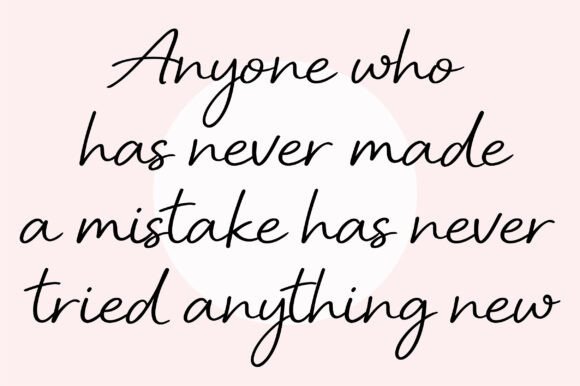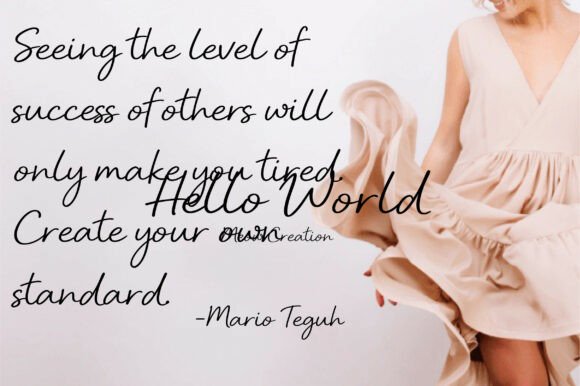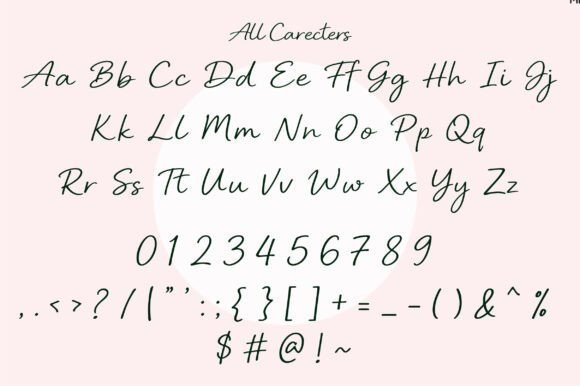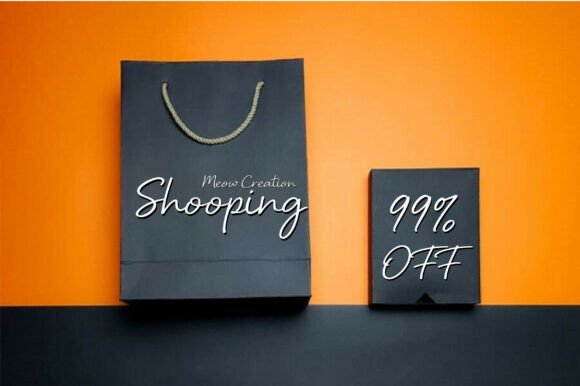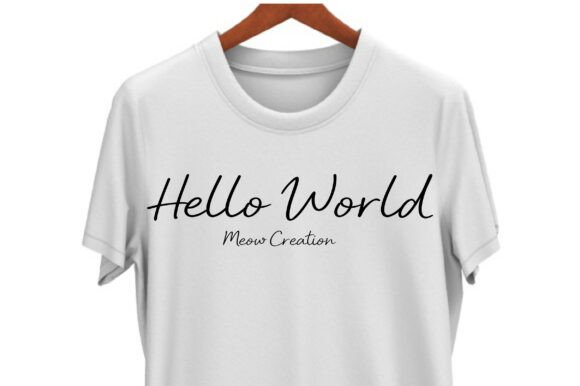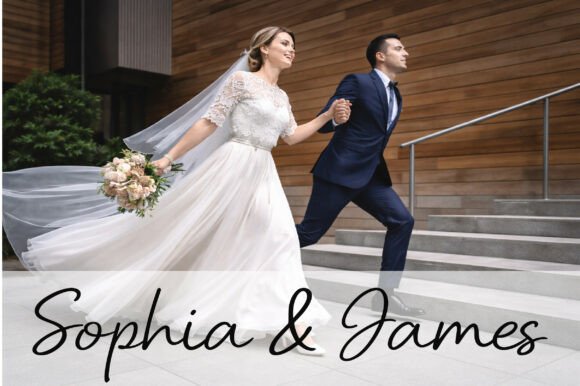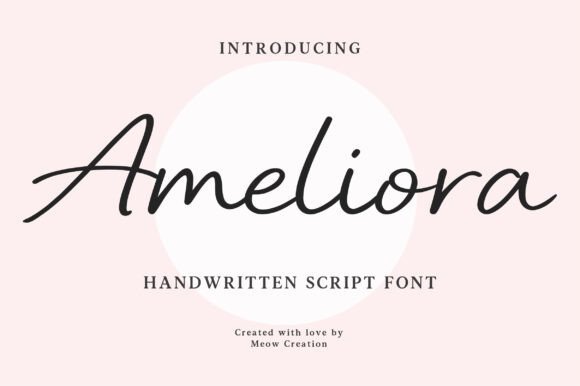
Introducing Ameliora Font: Elevate Your Designs with Elegant Simplicity
In the world of typography, a font can make or break the aesthetic of a design. For designers and crafters looking for that perfect blend of personal touch and professional elegance, Ameliora Font is a game-changer. This modern handwritten script font is designed to bring a smooth, natural flow and elegant simplicity to a wide range of projects, from branding and quotes to social media, packaging, and lifestyle designs.
The Essence of Ameliora Font
Ameliora Font is crafted to feel personal yet professional, making it an ideal choice for designers who want to add a warm, stylish handwritten touch to their work without compromising on readability. Its clean and elegant lines ensure that it stays readable across various mediums, whether digital or print. This versatility is key for designers working on diverse projects that require a consistent visual language.
Key Features of Ameliora Font
- Comprehensive Character Set: Ameliora includes uppercase and lowercase letters, numbers, and common symbols. This extensive character set makes it easy to use for a variety of design needs, ensuring that you have all the elements required to create cohesive and visually appealing work.
- Elegant Simplicity: The font’s design focuses on simplicity and elegance, making it suitable for projects that require a sophisticated look without being overly ornate.
- Smooth, Natural Flow: The handwritten script nature of Ameliora gives it a smooth, natural flow that mimics handwriting, adding a personal touch to any design.
- Readability: Despite its elegant and stylish appearance, Ameliora prioritizes readability, ensuring that your message is conveyed clearly and effectively.
Applications of Ameliora Font
The versatility of Ameliora Font makes it suitable for a wide range of applications:
- Branding: Use Ameliora to create a unique and memorable brand identity that stands out with its elegant simplicity.
- Quotes and Typography: Add a touch of elegance to quotes, posters, and typographic designs with the font’s stylish and readable script.
- Social Media: Elevate your social media content with Ameliora’s modern and clean aesthetic, making your posts stand out.
- Packaging: Incorporate Ameliora into your packaging designs for a sophisticated and appealing look that captures customers’ attention.
- Lifestyle Designs: From invitations to greeting cards, Ameliora brings a personal and professional touch to various lifestyle designs.
Why Choose Ameliora Font?
Choosing Ameliora Font for your design projects offers several advantages:
- Unique Aesthetic: Ameliora provides a distinctive look that can set your designs apart from the more commonly used fonts.
- Time-Efficient: With its comprehensive character set and readability, Ameliora saves you time in designing and ensures consistency across your projects.
- Adaptability: Its suitability for both digital and print projects makes Ameliora a versatile tool in your design arsenal.
Ameliora Font is a powerful tool for designers and crafters looking to infuse their projects with a personal yet professional touch. Its elegant simplicity, smooth natural flow, and comprehensive character set make it an excellent choice for a wide range of applications. Whether you’re working on branding, social media, packaging, or lifestyle designs, Ameliora can help elevate your work to new heights. Embrace the elegance and versatility of Ameliora Font in your next design project and experience the difference it can make.